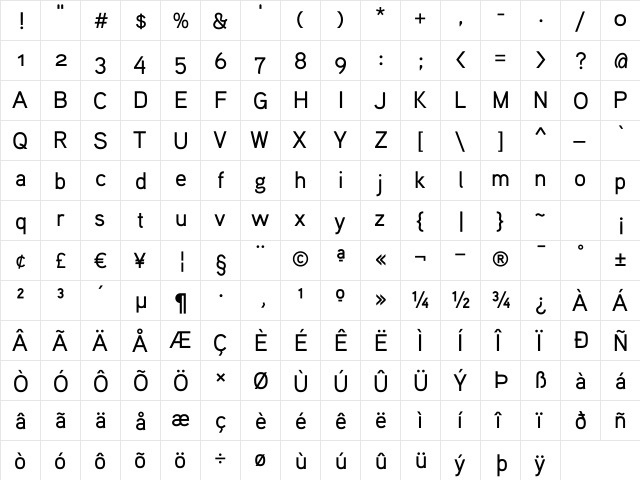
Aaux ProMedium OSF Regular
Design Context for Aaux ProMedium OSF Typeface
Aaux ProMedium OSF is a composed and adaptable typeface that performs quietly and consistently across a wide range of design contexts.
Pro Tip: Pair Aaux ProMedium OSF with a font of contrasting weight or personality to build a more expressive typographic hierarchy.